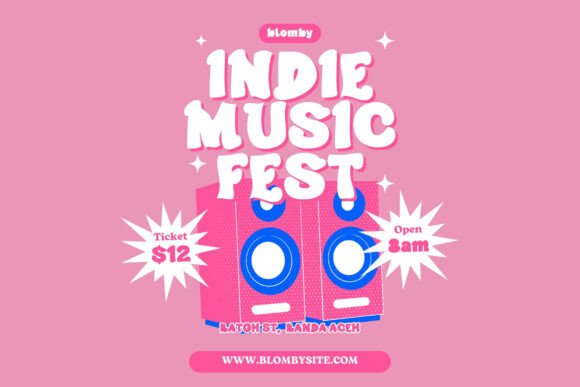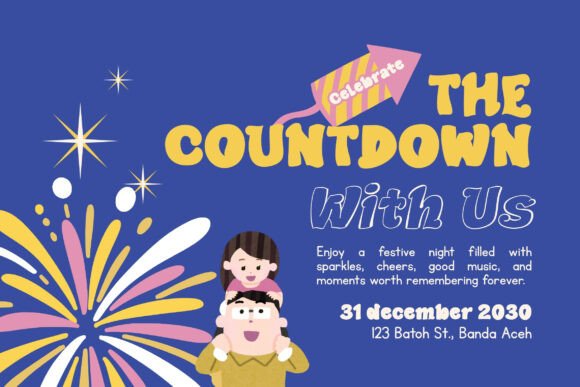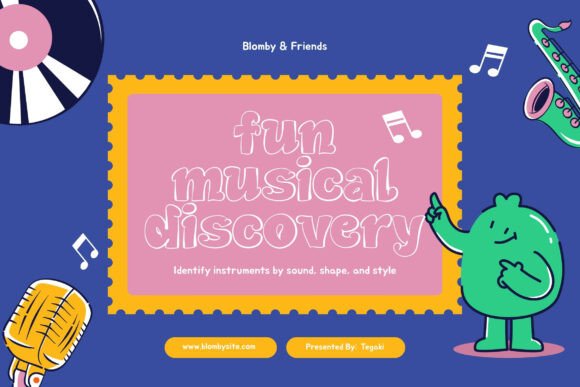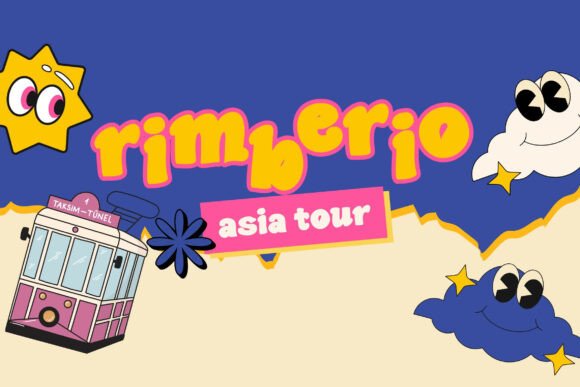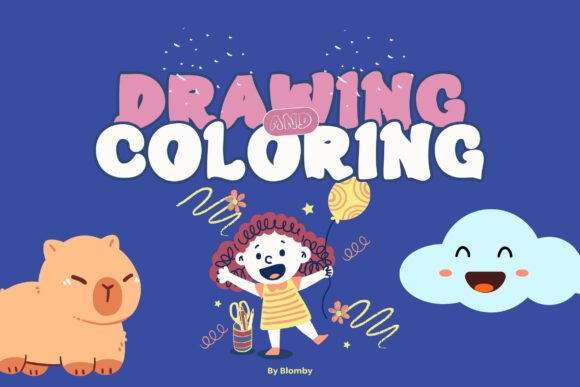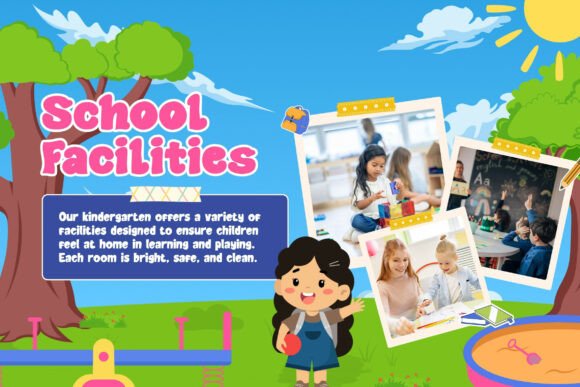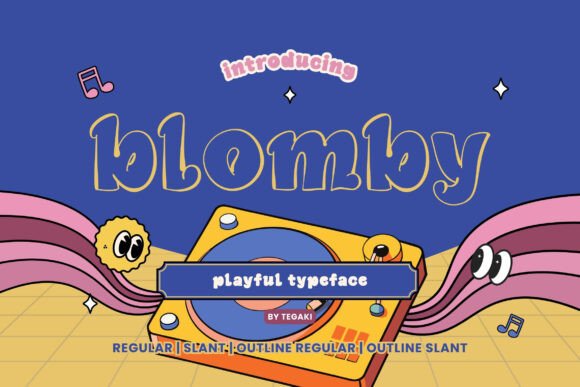
Introducing Blomby Font: The Playful Display Typeface for Fun and Cheerful Designs
Are you looking for a font that can add a touch of fun, charm, and playfulness to your designs? Look no further than Blomby Font, a delightful display typeface that is sure to bring a smile to your audience’s faces. Designed to create a lively and eye-catching look, Blomby is perfect for designers and crafters who want to infuse their projects with a cheerful personality.
The Characteristics of Blomby Font
Blomby Font is characterized by its soft curves, rounded shapes, and friendly letterforms. These features come together to create a font that feels energetic, approachable, and utterly charming. The soft curves and rounded shapes give Blomby a gentle, friendly feel that is perfect for designs that need to convey a sense of warmth and approachability.
The Uses of Blomby Font
Blomby Font is a versatile typeface that can be used in a wide range of design projects. Its playful and cheerful personality makes it perfect for:
- Children’s projects: Blomby is a great choice for kids’ books, educational materials, and other projects that require a fun and engaging visual presence.
- Playful branding: Use Blomby to create a brand identity that is fun, youthful, and energetic.
- Packaging: Add a touch of whimsy to your product packaging with Blomby’s playful and eye-catching letterforms.
- Posters: Create eye-catching posters that grab attention with Blomby’s bold and cheerful font.
- Logos: Use Blomby to create a logo that is fun, modern, and memorable.
- Social media graphics: Add a playful touch to your social media graphics with Blomby’s friendly and approachable font.
- Merchandise: Use Blomby to create fun and playful designs for merchandise such as t-shirts, mugs, and stickers.
- Entertainment designs: Blomby is perfect for designs related to entertainment, such as movie posters, playbills, and video game graphics.
The Benefits of Using Blomby Font
So why choose Blomby Font for your design projects? Here are just a few benefits of using this delightful typeface:
- Unique and eye-catching: Blomby’s playful and cheerful personality makes it a great choice for designers who want to create designs that stand out from the crowd.
- Versatile: Blomby can be used in a wide range of design projects, from children’s books to entertainment designs.
- Easy to read: Despite its playful nature, Blomby is a highly legible font that is easy to read, even at small sizes.
- Fun and engaging: Blomby’s friendly and approachable letterforms make it perfect for designs that need to convey a sense of fun and playfulness.
Tips for Using Blomby Font
Here are a few tips for using Blomby Font in your design projects:
- Use it boldly: Blomby is a display font, so don’t be afraid to use it boldly and make a statement.
- Experiment with colors: Blomby looks great in a wide range of colors, so don’t be afraid to experiment and find the perfect hue for your design.
- Pair it with other fonts: Blomby can be paired with a wide range of other fonts to create a unique and interesting visual effect.
Blomby Font is a playful and cheerful display typeface that is perfect for designers and crafters who want to add a touch of fun and charm to their designs. With its soft curves, rounded shapes, and friendly letterforms, Blomby creates a lively and eye-catching look that feels energetic and approachable. Whether you’re working on a children’s book, a playful branding project, or a fun social media graphic, Blomby is a great choice. So why not give Blomby a try and see how it can bring a smile to your audience’s faces?